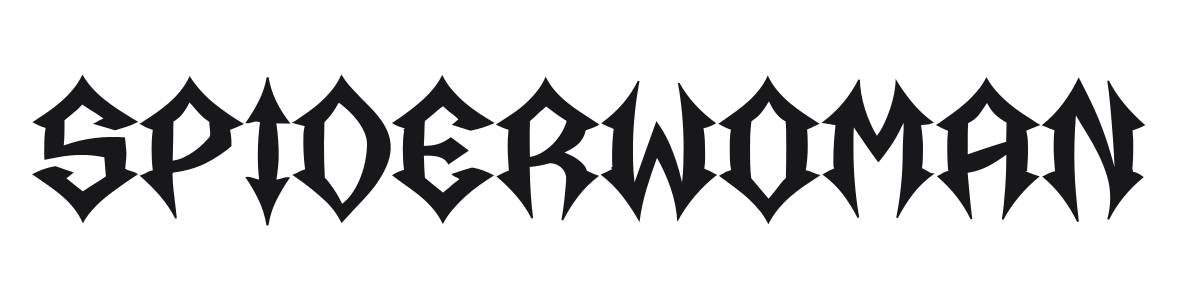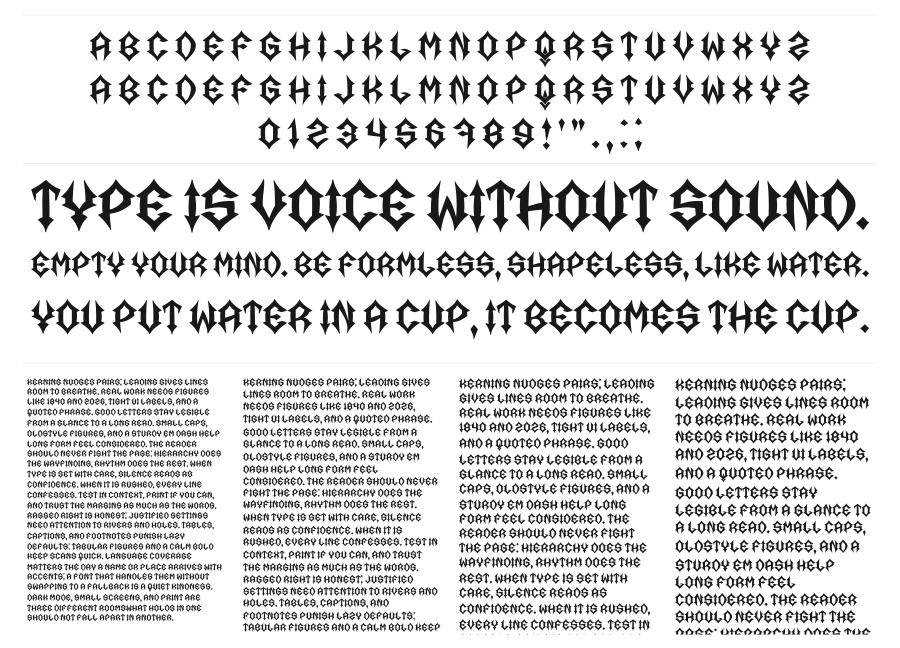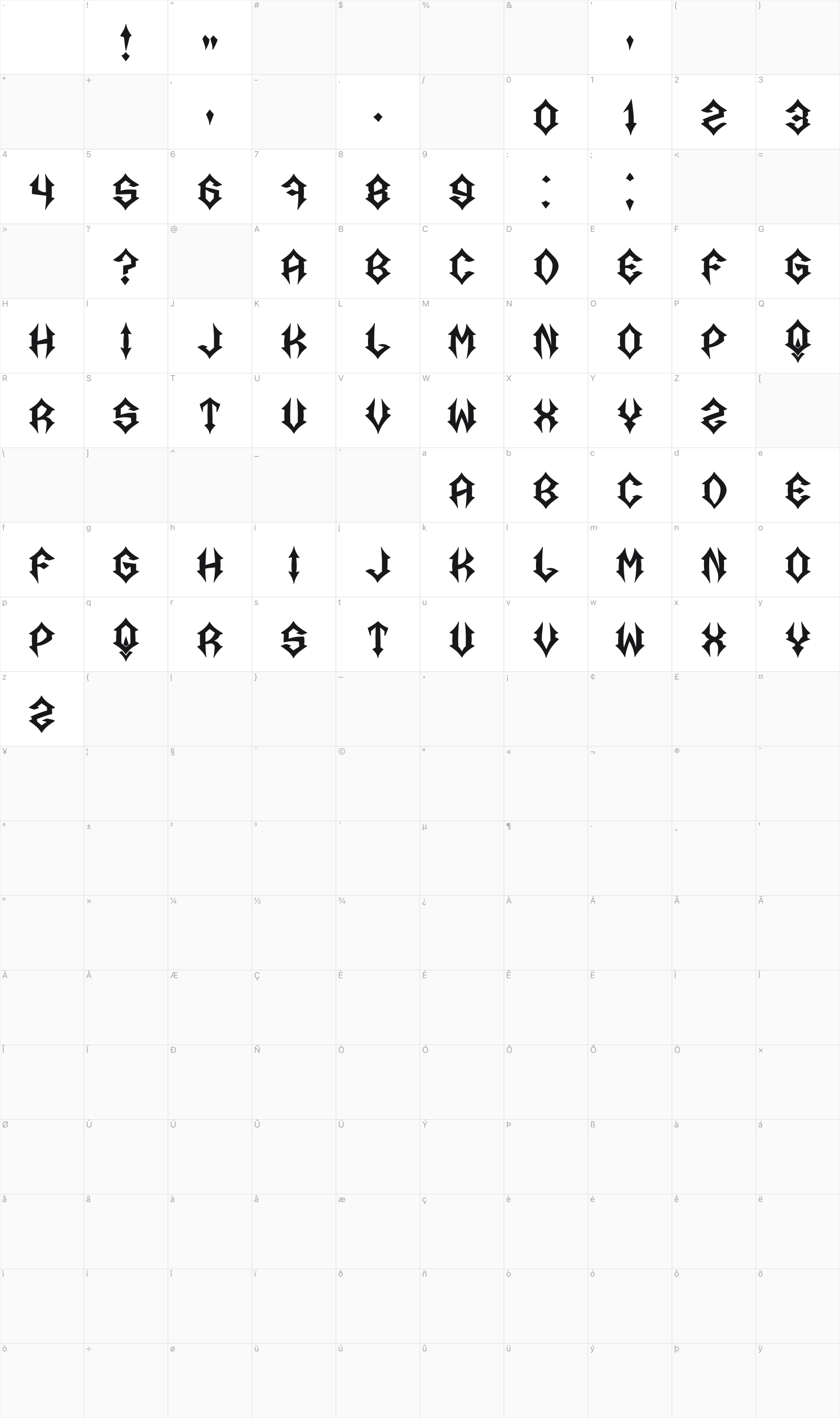
Spiderwoman
Spiderwoman is a bold gothic display font with sharp, angular strokes and pointed terminals that evoke spider legs and comic-book menace. The heavy condensed forms draw from blackletter tradition but push firmly into horror and villain territory. Strong at large sizes for posters, album covers, and title treatments.